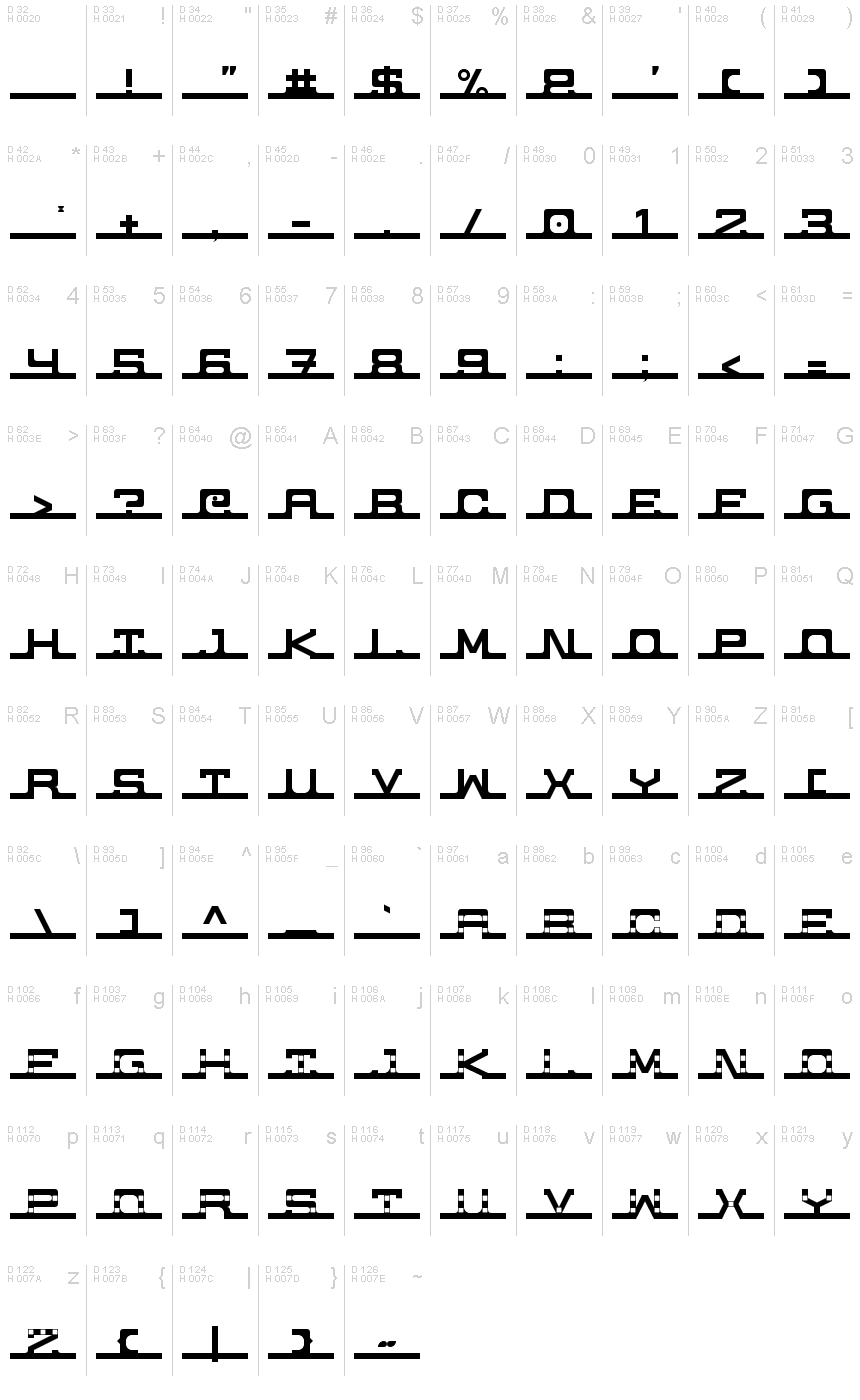
Unreachable Regular
“Unreachable” was built with FontStruct
Designer description: I wanted to try my hand at something I've never done before, a connected font. Inspired by, "Stabby - Unreachable".